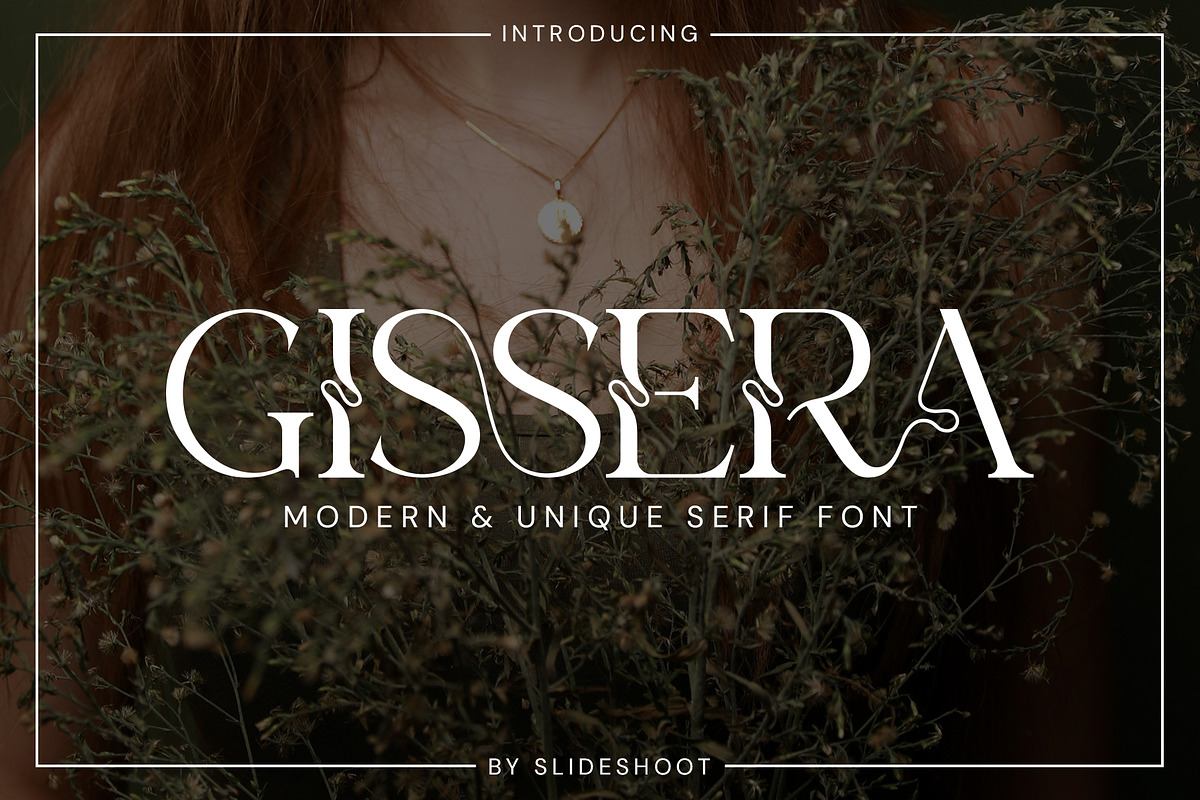
Gissera – Modern Serif Font Free Download
Elevate your designs with timeless sophistication using Gissera – Modern Serif Font Free Download. This elegant typeface blends classic serif elements with a sleek, contemporary twist, making it ideal for branding, editorials, fashion lookbooks, packaging, and high-end digital content.
Gissera features sharp serifs, clean lines, and graceful curves that deliver both readability and refined style. It supports uppercase and lowercase letters, numbers, and punctuation—making it perfect for testing in headlines, logos, and luxurious layouts.